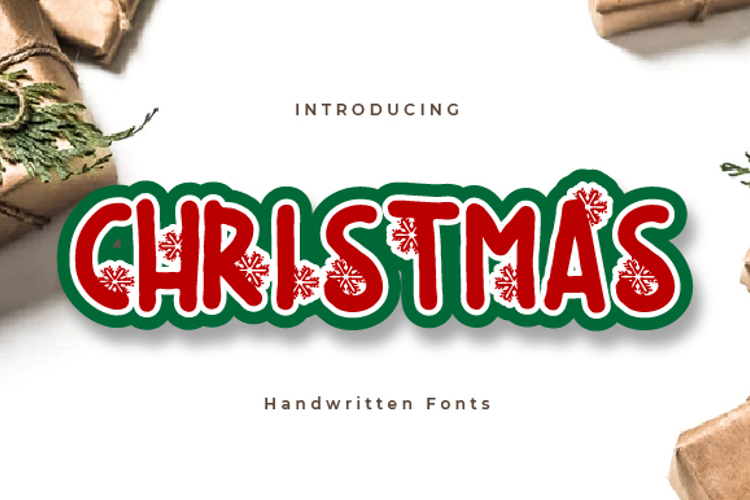
Christmas Font
Christmas is a fun and festive display font. It is suitable for any winter and holiday branding, product packaging, invitation, quote, t-shirt, label, poster, logo that you wish to develop.